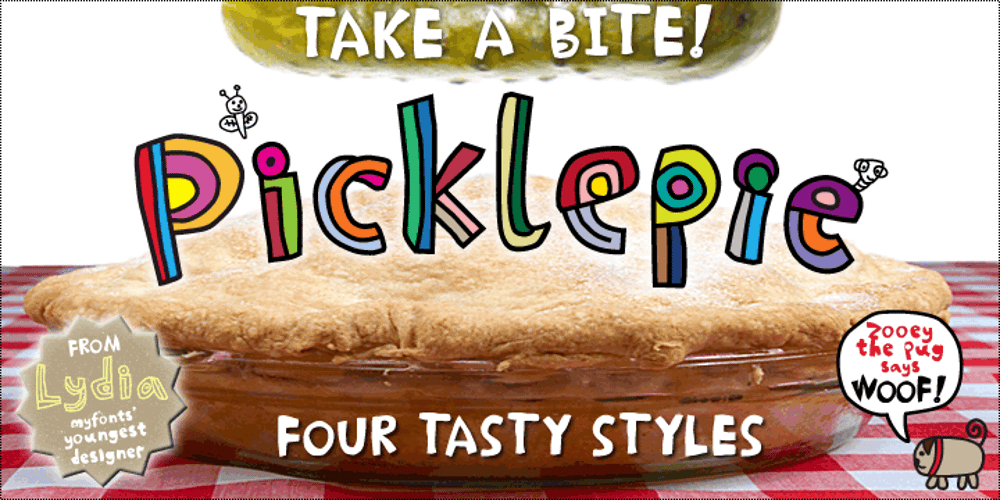
Picklepie
Picklepie font
Picklepie Font Family was designed by Tim Barnes, Lydia Barnes and published by chicken. Picklepie contains 8 styles and family package options. Picklepie was created by Lydia, aged around 6 at the time, for use in her own artwork and things like party invitations, birthday cards and secret files. It looked so lively, happy and original that, with encouragement from me, her dad, she went on to draw all the letter and number forms, including alternate versions of some, entirely unaided. I then elaborated the other characters, doing my best to preserve the delightful logic and spontaneity of her work. Picklepie makes you smile. It has the joyful, fearless and inventive spirit of its creator, and everyone who’s seen it loves it. It looks great used big and bold, and really zings when you color it in. And please make sure you also check out her follow-up design, Pigeonpie. All the $$$ go to Lydia’s college fund, plus a few treats along the way!